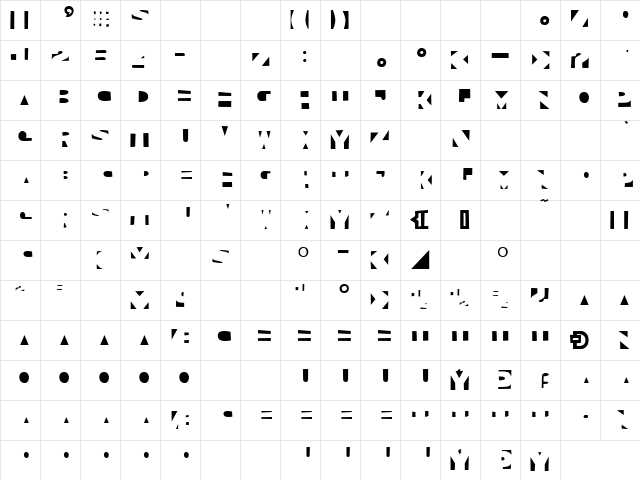
Bfrika 2Tone Two
Design Context for Bfrika 2Tone Typeface
Bfrika 2Tone is a composed and adaptable typeface that performs quietly and consistently across a wide range of design contexts.